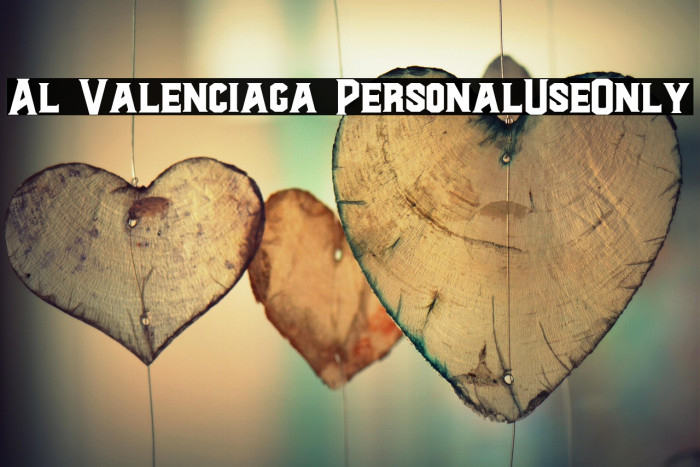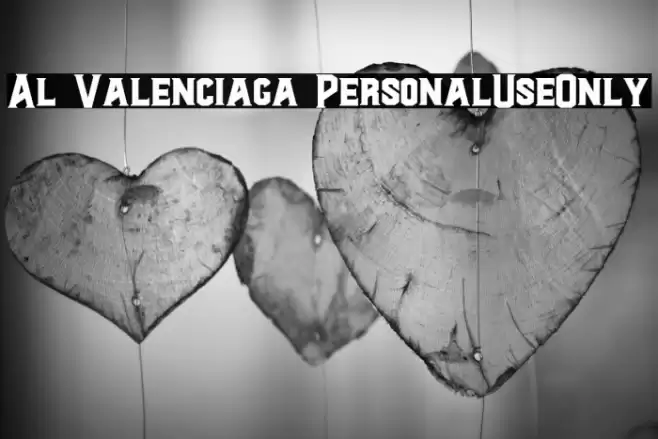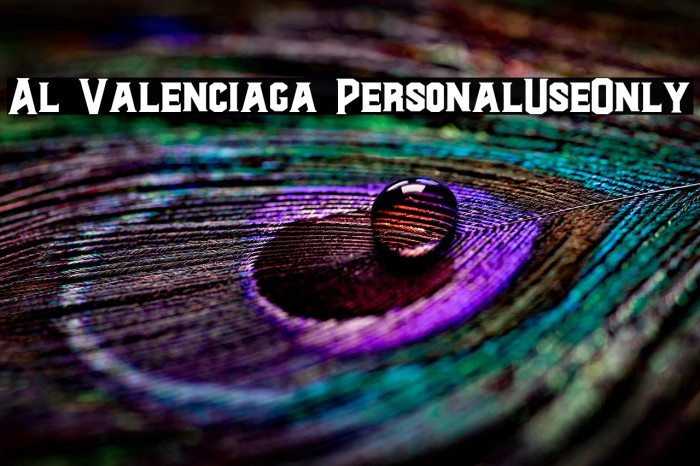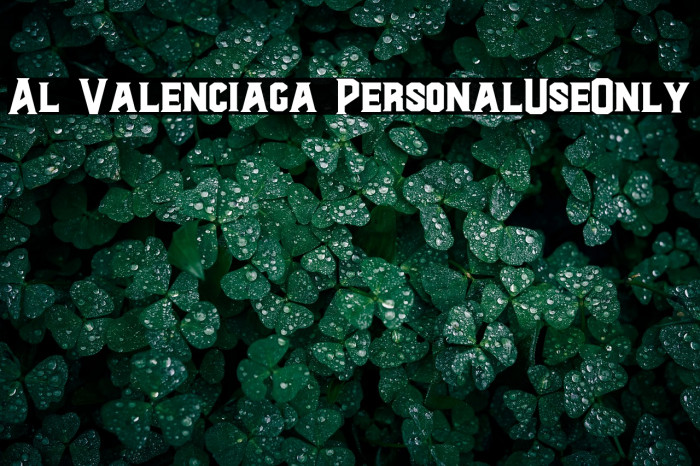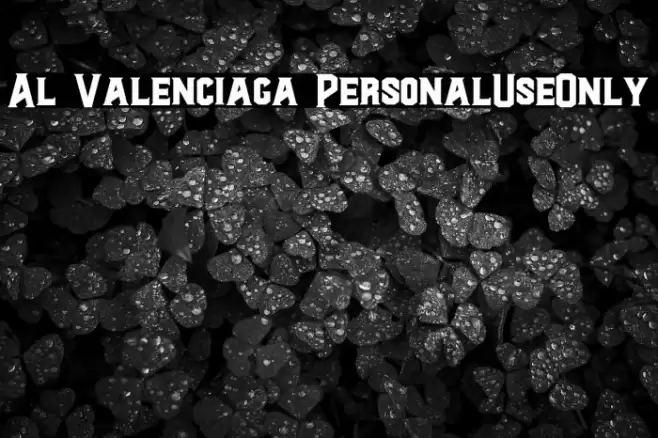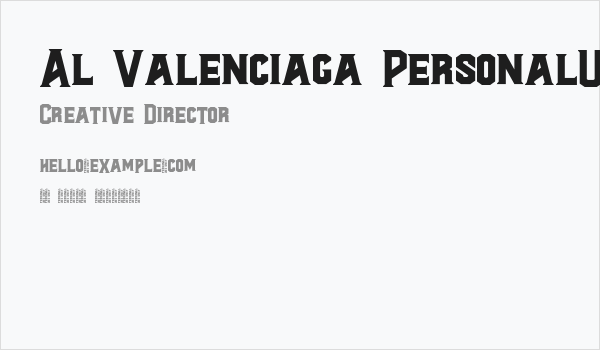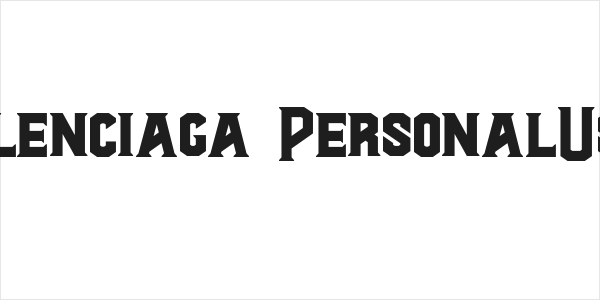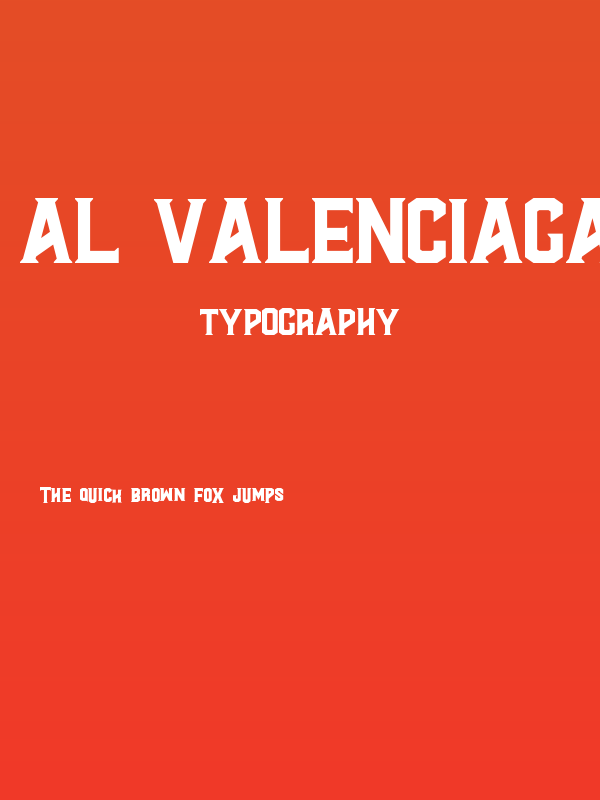
Al Valenciaga PersonalUseOnly Font
Al Valenciaga PersonalUseOnly Description
This font features a bold and striking design with sharp, angular lines that give it a modern and edgy appearance. The uppercase letters are particularly prominent, with a strong presence that commands attention. The characters are evenly spaced, providing a balanced and cohesive look. The font's unique style makes it suitable for projects that require a bold statement, such as branding or advertising. Its distinct appearance is both contemporary and versatile, making it a great choice for a variety of design applications.
| Proposed Projects | Ideal for branding, advertising, posters, and headlines. |